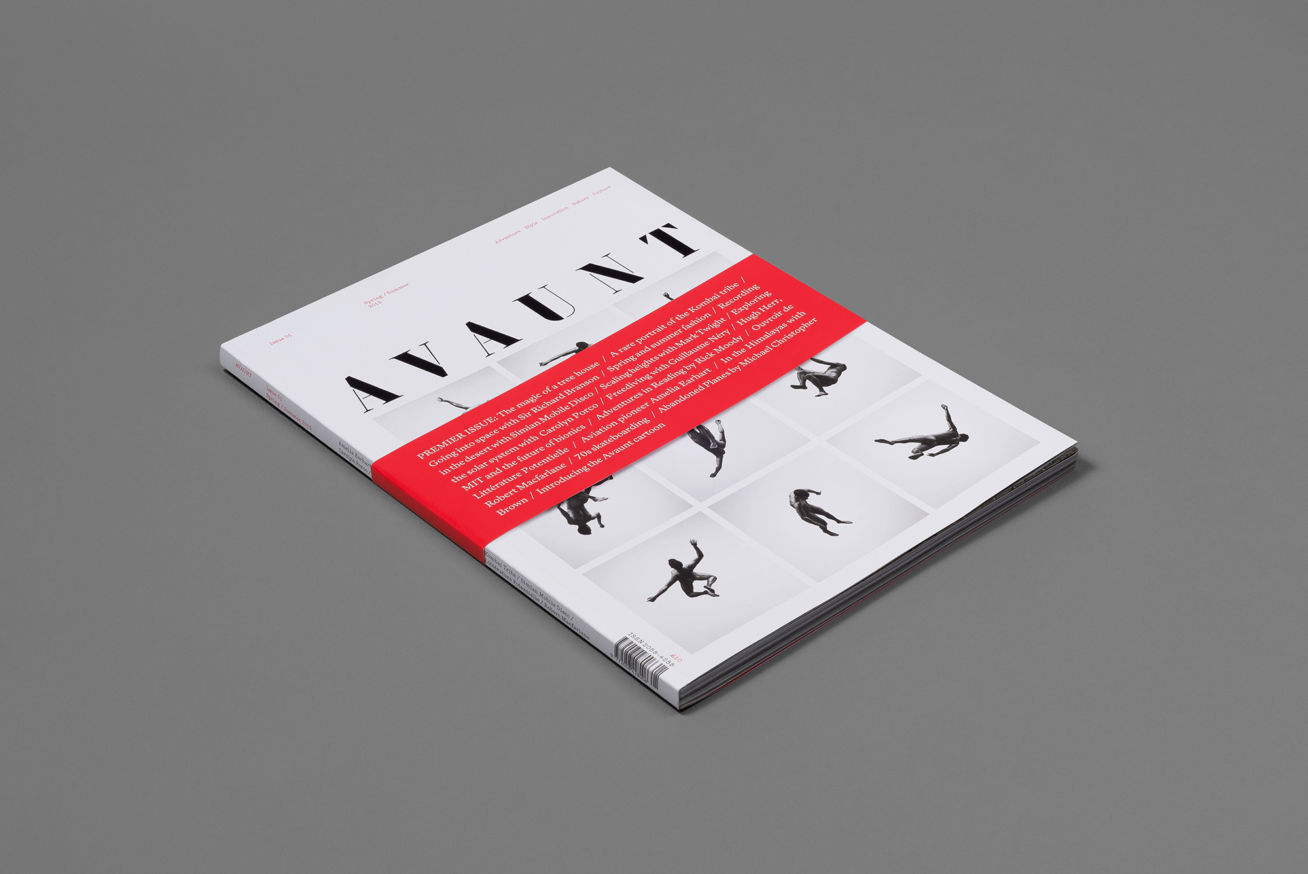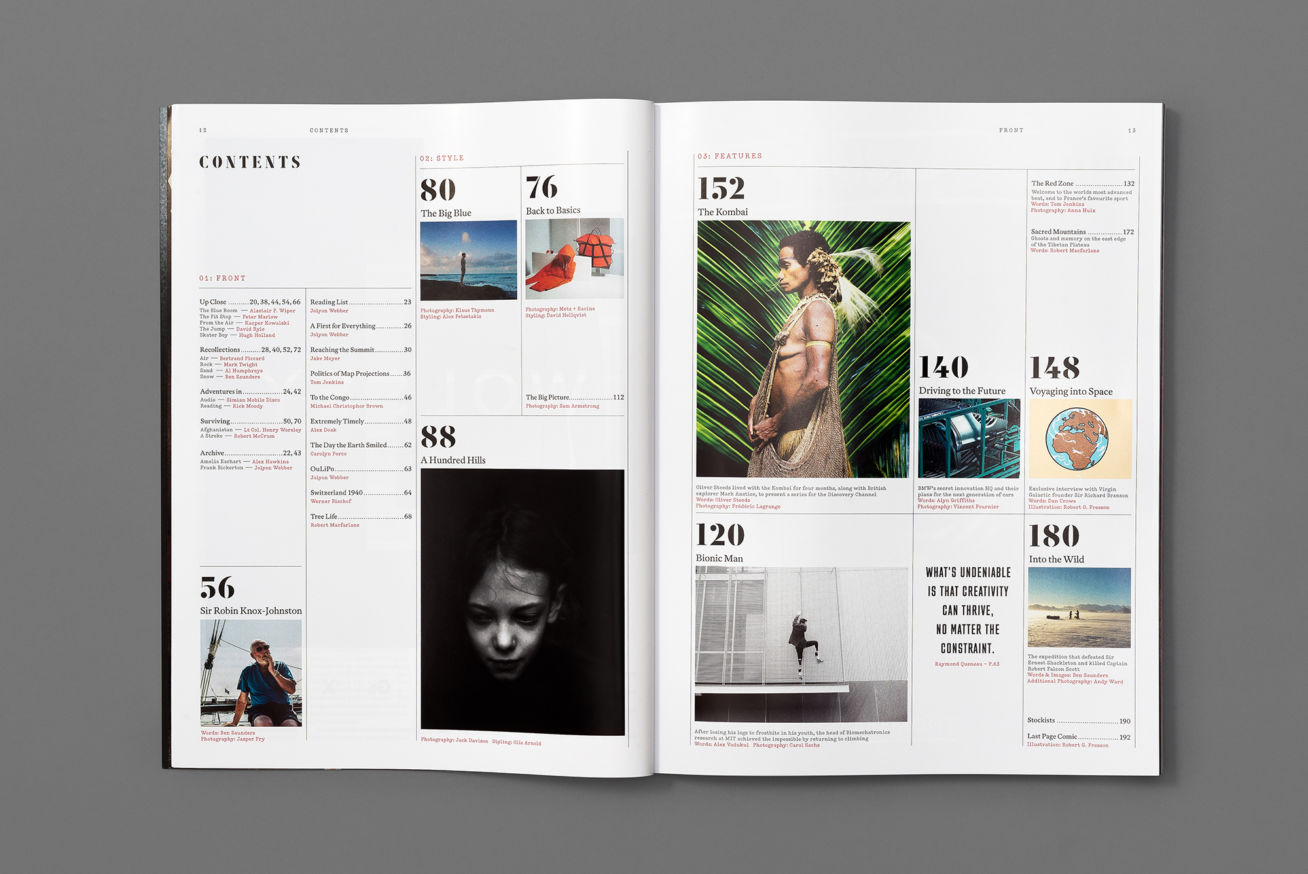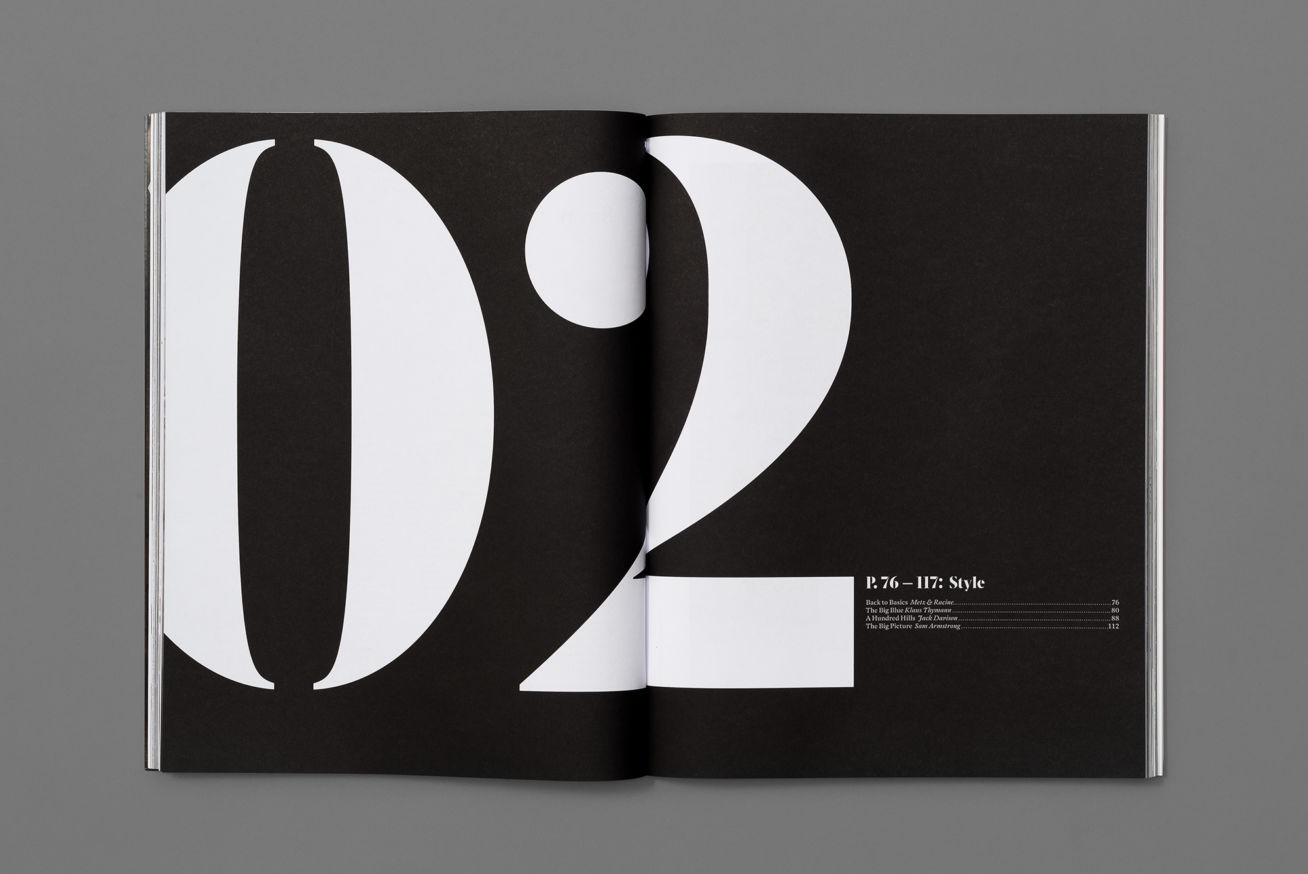
Avaunt Stencil is an elegant serif stencil font commissioned by art director Matt Willey for his design for AVAUNT Magazine in early 2014. The typeface was originally designed in one weight with a limited character set. In 2016, the font was reworked in a variety of weights, and the glyph set expanded to include multiple languages.
| Font name: | Avaunt Stencil |
| Font category: | Serif |
| Styles: | Light Regular Medium Semibold Bold |
| Script: | Latin |
| Manufacturer: | A2-TYPE |
| Designer: | Henrik Kubel |